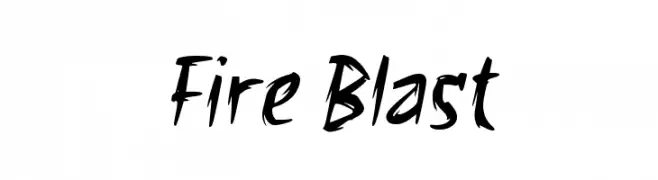
A dynamic, flame-inspired italic font with sharp serifs and bold curves.
A bold, fiery font with jagged, flame-like strokes.
A bold, fiery font with dynamic flame-like accents.
A bold, flame-inspired font with intricate detailing and a dramatic appearance.
A bold, italic font with flame accents for a dynamic and fiery look.
A dynamic, fiery font with sharp, jagged edges and bold strokes.
A bold, textured font with a fiery, distressed appearance.
A bold, fiery font with a distressed, energetic style.
A bold, flame-inspired decorative font with intense, dynamic shapes.
A bold, fiery font with jagged, flame-like edges for dramatic impact.